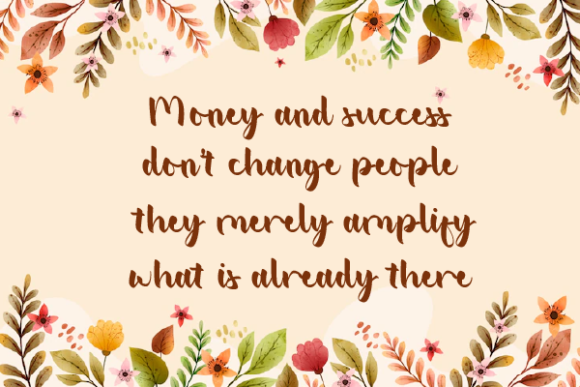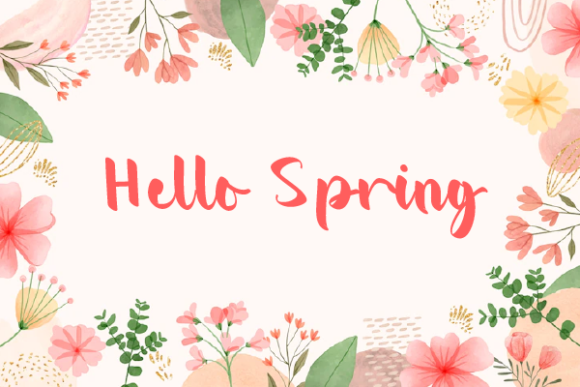
Zariya Font
db-ku.com - Script & Handwritten -- Zariya is a modern handwritten calligraphy font. This font can make your writing and brand elegant or beautiful. Zariya is great for unique branding, photo overlays, watermark, greeting cards, posters, business cards, invitations, weddings, photography, fashion, apparel, letter, stationery, etc.